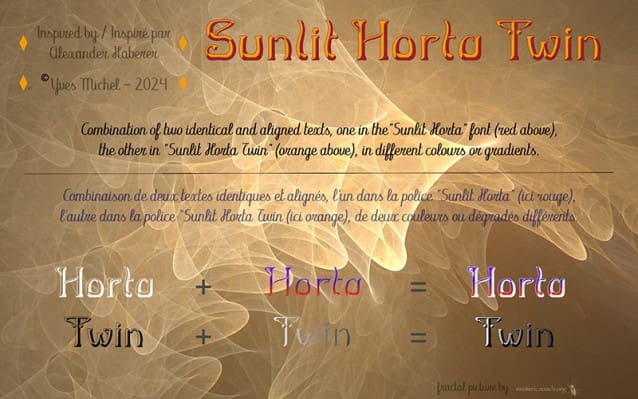
Sunlit Horta Twin Font
Sunlit Horta Twin Font. This font consists of the originally empty contours in the “Sunlit Horta” font.
In a graphic program, when the same text is typeset in two text frames at the same size, one in the normal font, one in the shadow font, and the frames are exactly overlaid, you get the combined result of letters and shadows. Fill the two frames with different colours or gradients